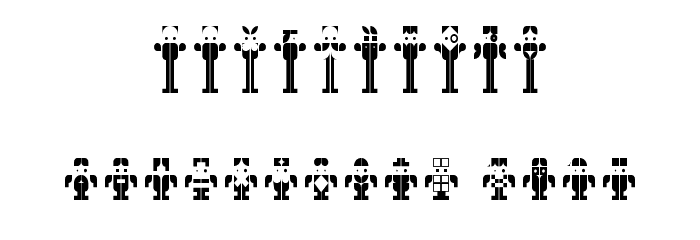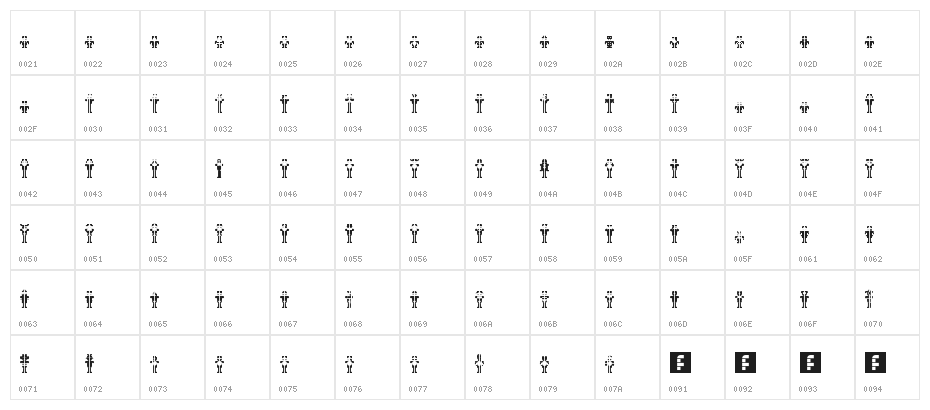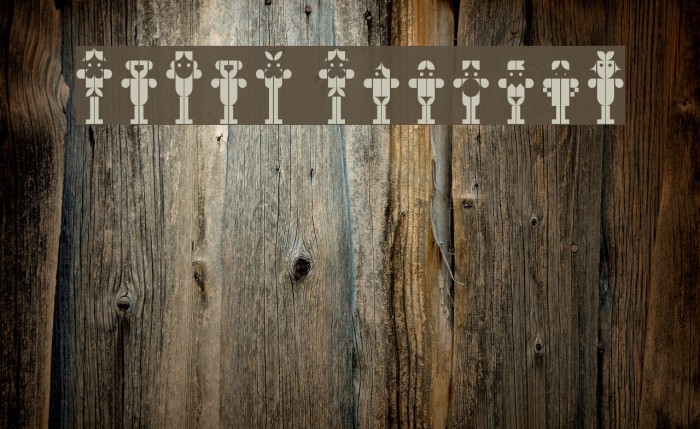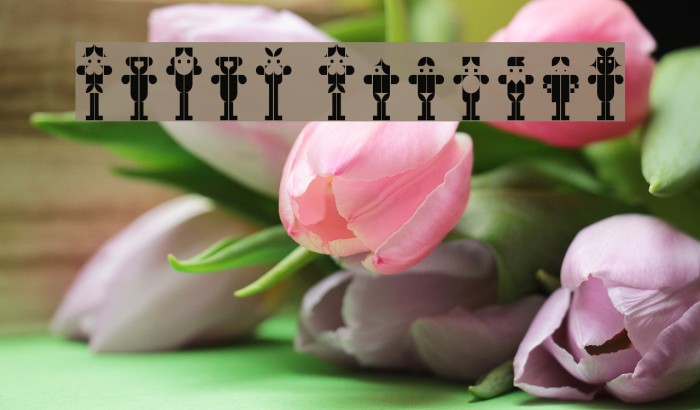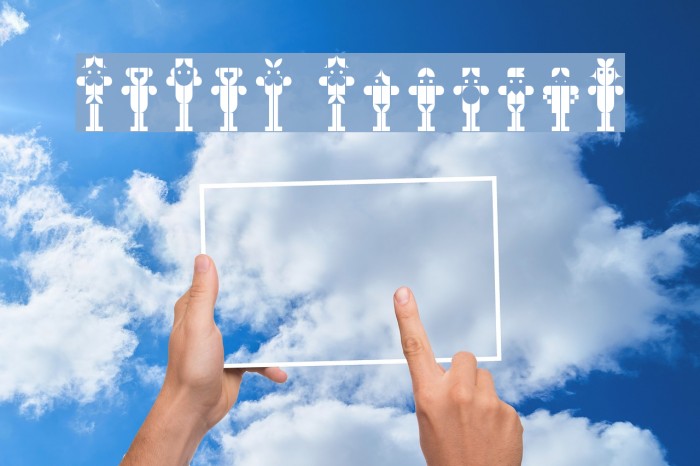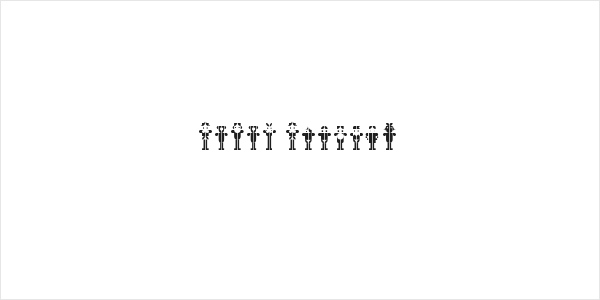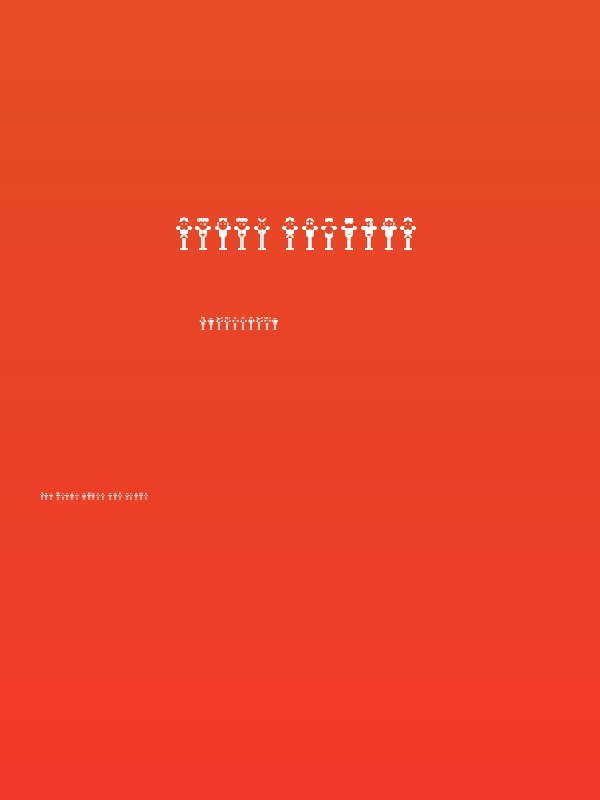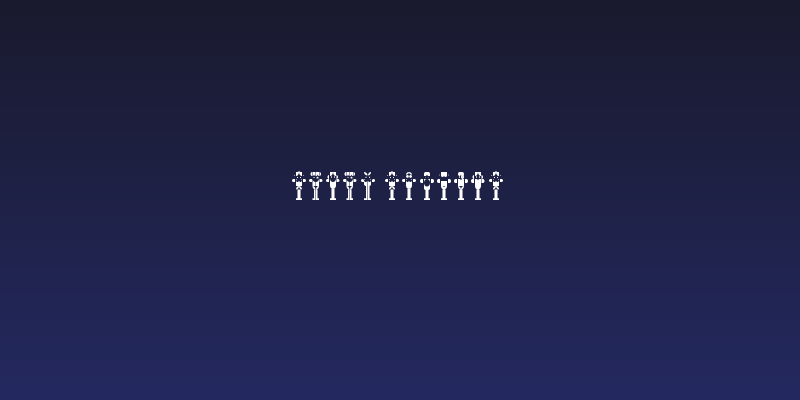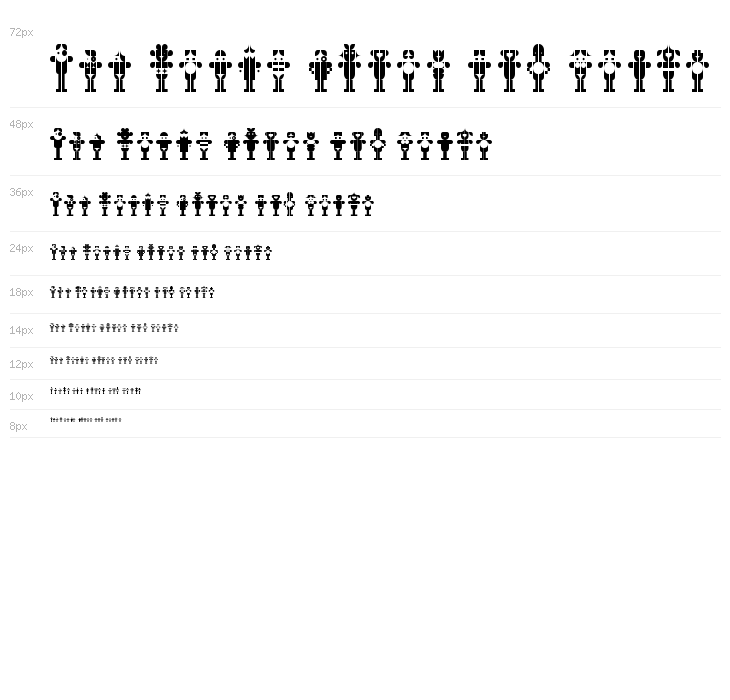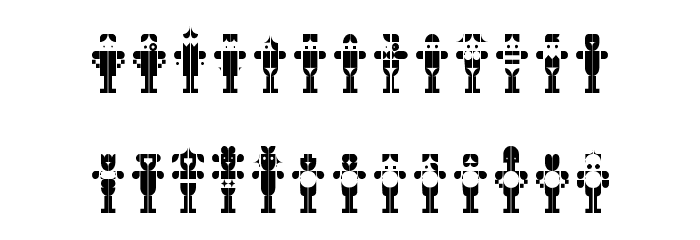
RoBo2 Regular Font
RoBo2 Regular Description
This font features a unique and playful design, where each character is represented as a stylized robot figure. The characters are composed of geometric shapes, including circles and rectangles, giving them a mechanical and futuristic appearance. The font maintains a consistent structure across all characters, with each letter and number having a distinct robotic personality. The special characters are also creatively integrated into the robot theme, adding to the overall cohesive look. This font is ideal for projects that require a fun and imaginative touch, especially those related to technology or children's media.
| Overall Style | Futuristic, Playful |
| Use Case | Logos, Posters, Children's media |
| Proposed Projects | Ideal for children's books, tech-themed posters, video game graphics, and educational materials. |